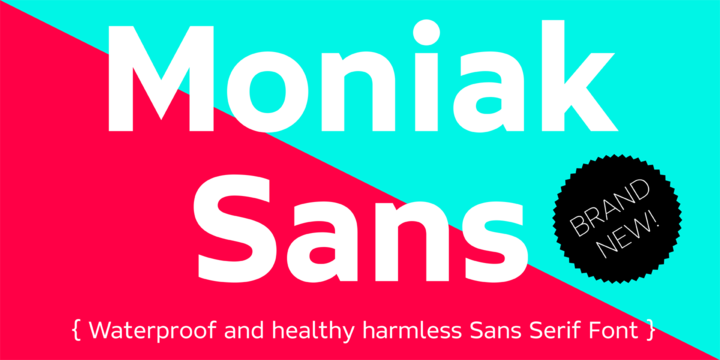
Moniak Sans
by Design Komando
Moniak Sans is a linear, humanist sans with a vertical stress axis. Distinctive for its open strokes, Moniak features generally broader typeface proportions to offer excellent readability even at small sizes. This property also supports lowercase stroke endings. The designer emphasised elegant, pure curves in the skeleton of the font, making it optically friendly and inviting in magazine headline and poster applications.
Most languages using Latin script are supported.